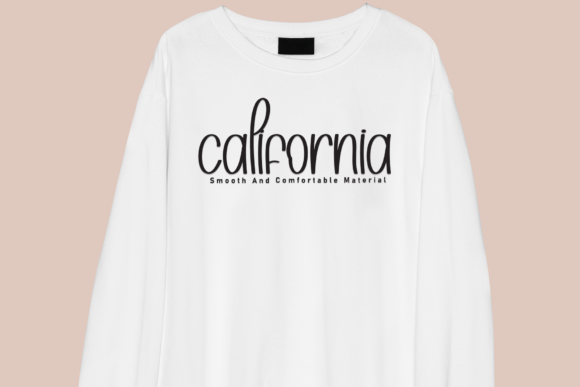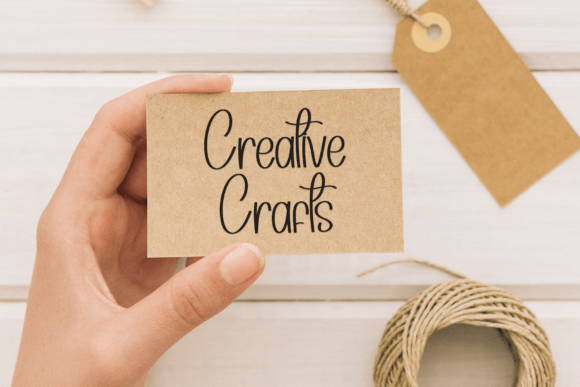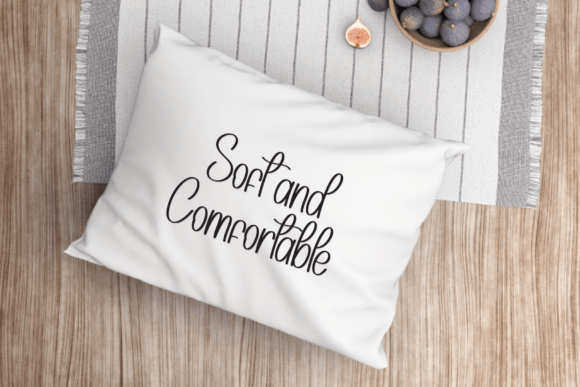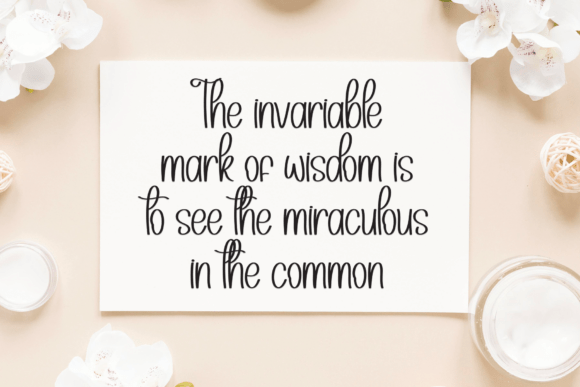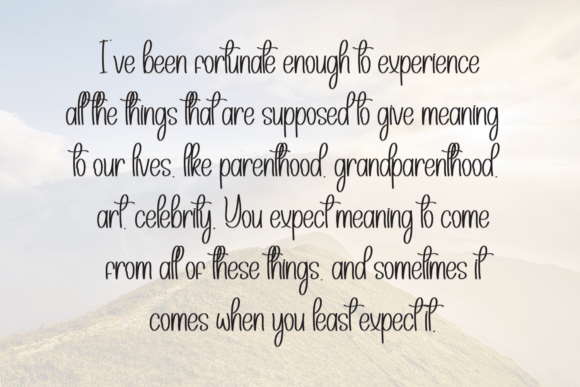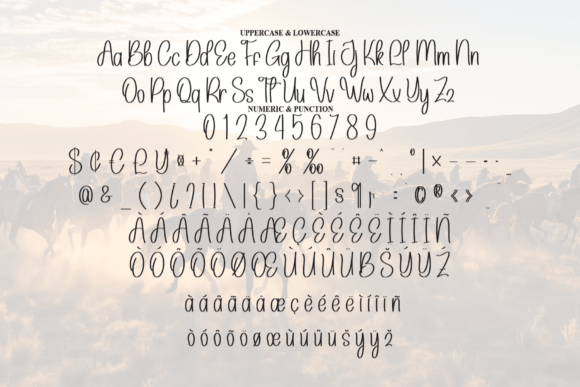
Cowboy Font: A Stylish Script Font for Creative Designs
In the world of typography, fonts play a crucial role in conveying the tone and personality of a design. For designers and crafters looking for a stylish and elegant font, Cowboy is an excellent choice. This stunning script font is perfect for creating artistic and contemporary designs that exude sophistication and flair.
What is Cowboy Font?
Cowboy is a stylish script font that features fluid brush strokes, dynamic curves, and expressive letterforms. It captures the essence of hand-painted calligraphy with a modern twist, making it ideal for a wide range of design applications. From logos and invitations to packaging and social media graphics, Cowboy font adds a creative and sophisticated touch to any design.
Key Features of Cowboy Font
- Fluid Brush Strokes: Cowboy font features fluid brush strokes that give it a natural and hand-painted look.
- Dynamic Curves: The font’s dynamic curves add a touch of elegance and sophistication to any design.
- Expressive Letterforms: Each letterform in Cowboy font is uniquely designed to convey a sense of artistic flair and creativity.
- Modern Twist: The font’s modern twist on traditional calligraphy makes it perfect for contemporary designs.
Uses of Cowboy Font
Cowboy font is incredibly versatile and can be used for a wide range of design applications, including:
- Logos: Create a unique and memorable logo for your brand with Cowboy font.
- Invitations: Add a touch of elegance and sophistication to your invitations with Cowboy font.
- Packaging: Use Cowboy font to create eye-catching packaging designs that stand out on store shelves.
- Social Media Graphics: Create stunning social media graphics with Cowboy font that grab attention and drive engagement.
Benefits of Using Cowboy Font
Using Cowboy font in your designs offers several benefits, including:
- Visual Impact: Cowboy font delivers a strong visual impact that grabs attention and draws the viewer in.
- Versatility: The font’s versatility makes it suitable for a wide range of design applications.
- Creativity: Cowboy font inspires creativity and allows designers to push the boundaries of their designs.
- Sophistication: The font’s elegant and sophisticated look makes it perfect for high-end designs.
Cowboy font is a stylish script font that exudes artistic flair and contemporary elegance. With its fluid brush strokes, dynamic curves, and expressive letterforms, it’s perfect for creating creative and sophisticated designs. Whether you’re a designer or crafter, Cowboy font is an excellent choice for adding a touch of elegance and sophistication to your designs.